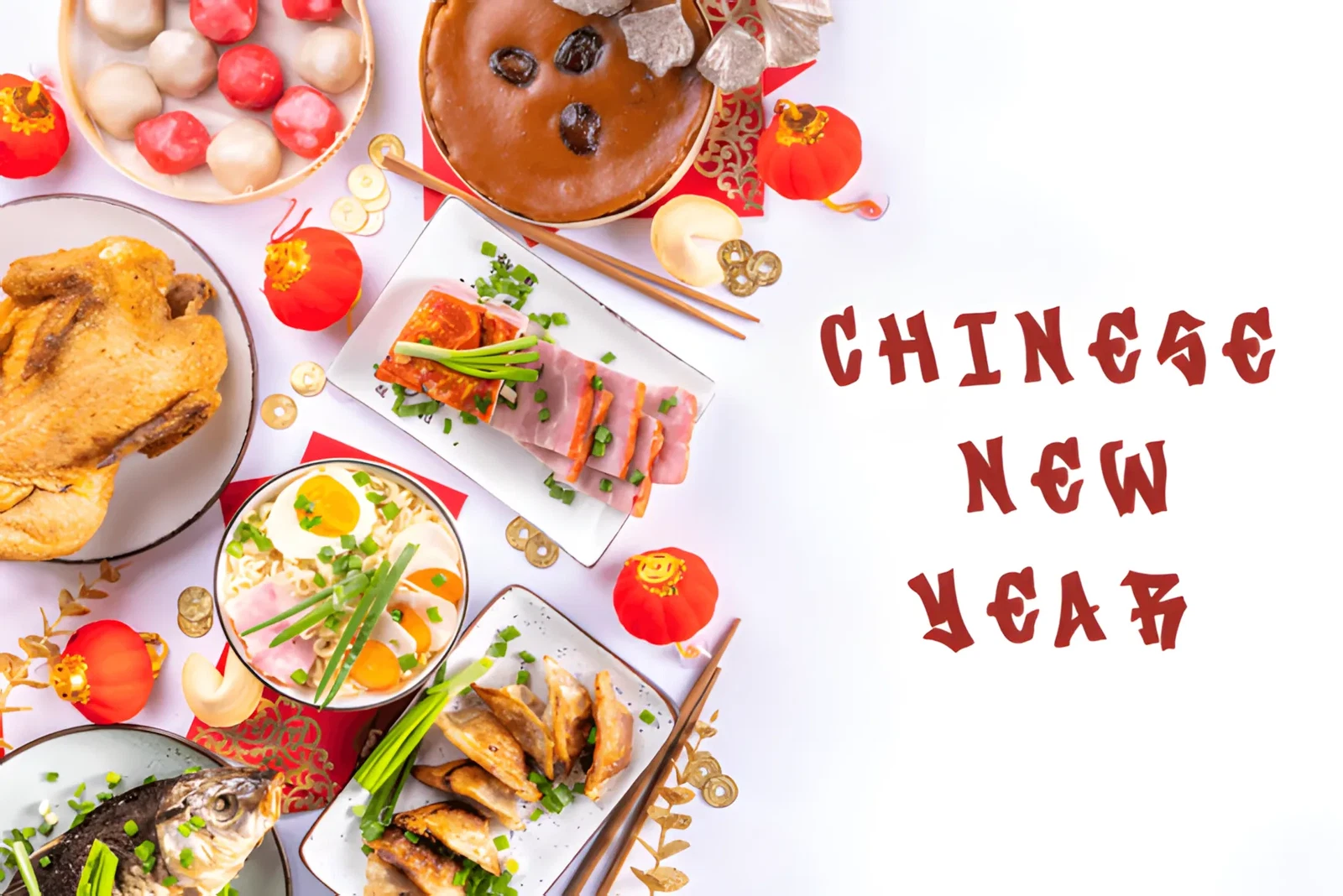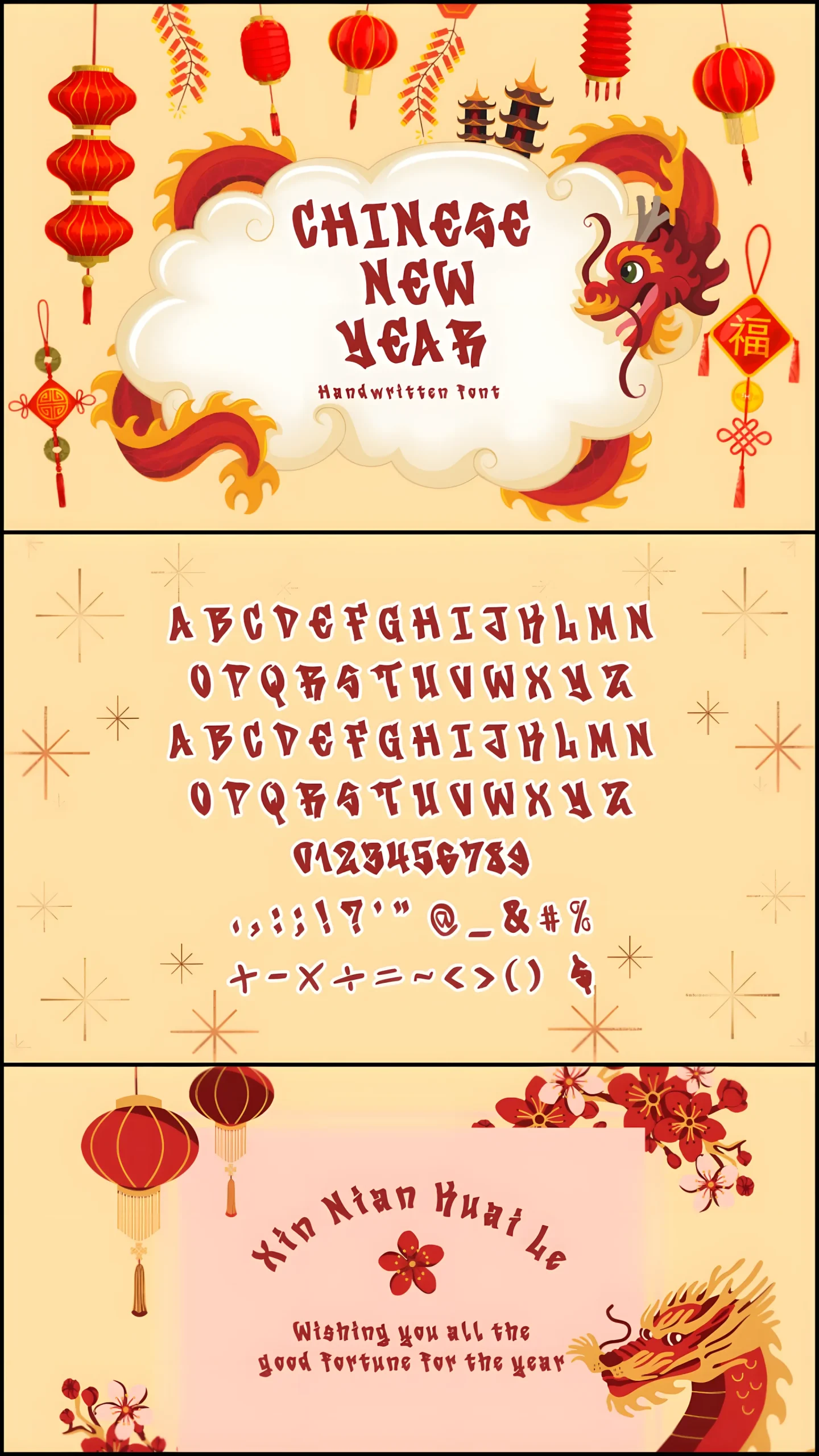
Typography plays a key role in conveying mood, theme, and cultural context in design. When it comes to capturing the festive spirit of the Lunar New Year, seasonal graphics, or celebration-themed projects, the Chinese New Year 291 Font offers a playful and engaging visual style. This decorative display font blends bold forms with handmade charm, making it ideal for designs that celebrate Asian traditions or seasonal festivities.
Whether creating greeting cards, banners, social posts, or holiday branding, this font brings an authentic celebratory feel that resonates with audiences.
What Is Chinese New Year 291 Font?
Chinese New Year 291 Font is a handwritten decorative display typeface designed to evoke the joyful atmosphere of Chinese Lunar New Year and other celebratory events. Its letterforms have a casual, organic feel that looks hand-drawn, adding warmth and personality to any creative project.
Although it works beautifully in festive contexts, the font can also be applied to everyday design needs such as mugs, stationery, shirts, cards, banners, and social media graphics where a cheerful style is desired.
This font pairs well with both bold graphic elements and simple layouts, as its decorative character can serve as either the main visual focus or an accent design element.
Visual Style and Aesthetic Appeal
The visual character of the Chinese New Year 291 Font combines the whimsy of a handmade script with bold strokes and decorative flair. Its shapes are fluid and expressive, suggesting a brush-painted or hand-lettered origin that feels deeply personal and lively.
This decorative quality is perfect for projects that aim to evoke joy, tradition, and celebration. Whether used in print or digital design, the font’s bold presence ensures readability while contributing to overall visual appeal.
Because of its dynamic style, this typeface excels in graphic compositions that rely on personality and emotional impact.
Best Uses for Chinese New Year 291 Font
Holiday Greeting Cards & Seasonal Messages
This font instantly transforms greeting cards and holiday messages into festive pieces. Whether for Chinese New Year, Spring Festival, or seasonal celebrations, its energetic strokes create a warm, welcoming impression that aligns with the spirit of festivity.
It also works beautifully with traditional red and gold color schemes often associated with Lunar New Year celebrations.
Social Media Graphics & Event Promotion
In digital marketing, engaging typography is crucial to catch attention quickly. Chinese New Year 291 Font performs well in:
- Social media posts
- Event announcements
- Digital invitations
- Promotional banners
These use cases benefit from the font’s expressive style, which helps content stand out in crowded feeds and visual platforms.
Posters, Banners & Print Materials
For print and physical designs, this decorative display font adds dramatic impact to posters, banners, stickers, and flyers. Its bold letterforms ensure messages are eye-catching from afar, making it perfect for holiday events, cultural festivals, and community celebrations.
Using this font in large display text can help anchor a design visually and emotionally.
Merchandise & Stationery Design
Beyond invitations and posters, Chinese New Year 291 Font can enhance:
- T-shirt graphics
- Mugs and gift products
- Stationery and notebooks
- Custom crafts and handmade items
Its playful and festive aesthetic brings branded merchandise to life, offering a joyful vibe across product categories.
Advantages of Using Chinese New Year 291 Font
- Festive decorative style ideal for holiday and cultural celebrations
- Handwritten look that adds personality and charm
- Perfect for print and digital uses across social, event, and branding materials
- Versatile visual appeal that works with bold or minimalist designs
This font’s unique appearance makes it a go-to choice for designers who want a decorative typeface that communicates joy and cultural resonance.
Chinese New Year 291 Font is a decorative and expressive typeface that brings festive charm to any design project. With its handmade look and cheerful personality, this font is ideal for holiday graphics, greeting cards, posters, social media content, and seasonal branding.
For creatives looking to add cultural richness and a joyful visual tone to their work, this font provides both aesthetic appeal and practical versatility.